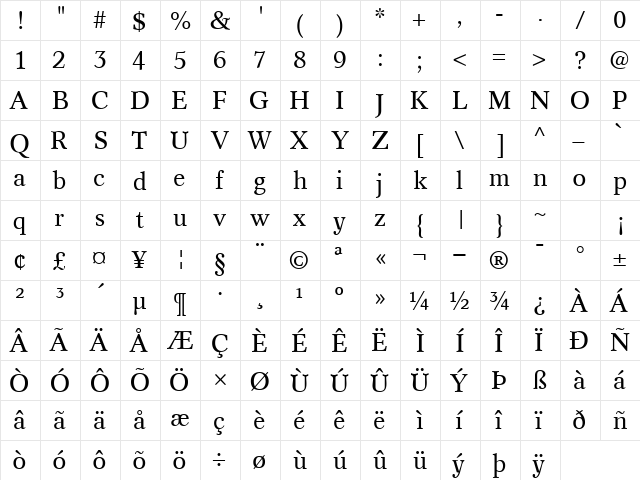
ZafraSSK Regular
Design Context for ZafraSSK Typeface
ZafraSSK offers clean, dependable letterforms without strong stylistic allegiance, making it a practical choice for designers who need flexibility.